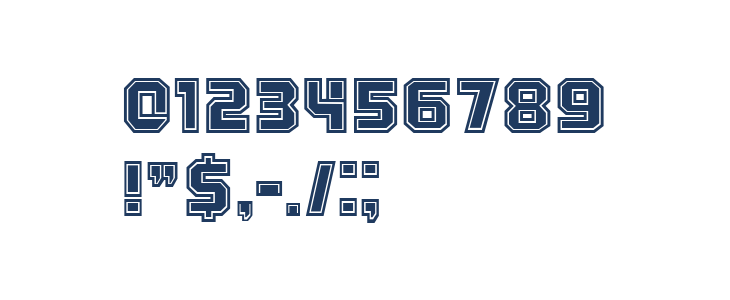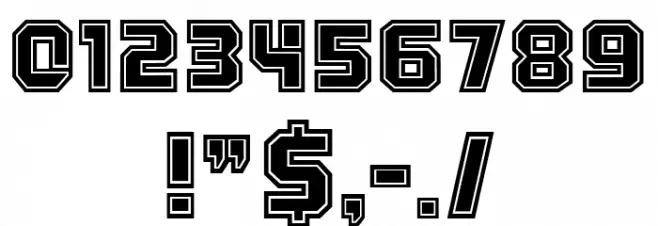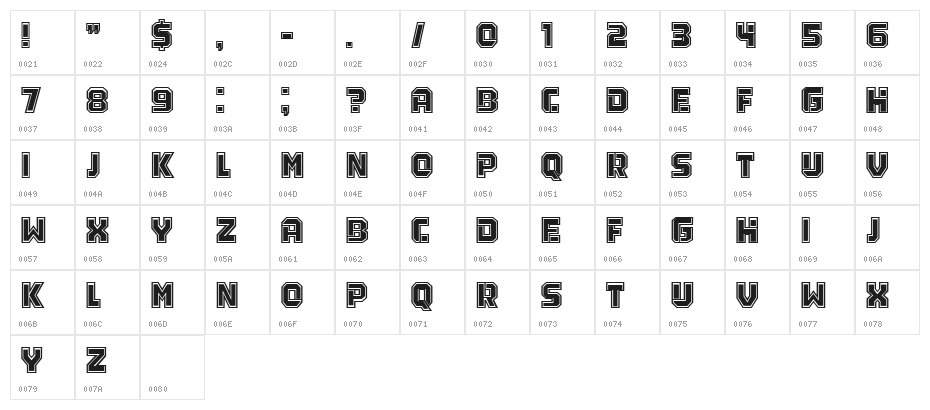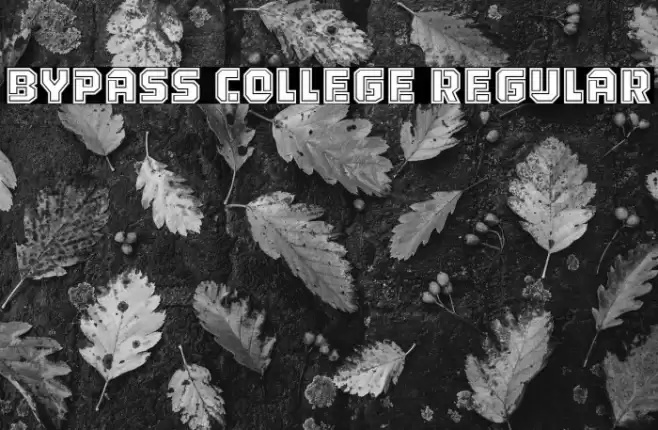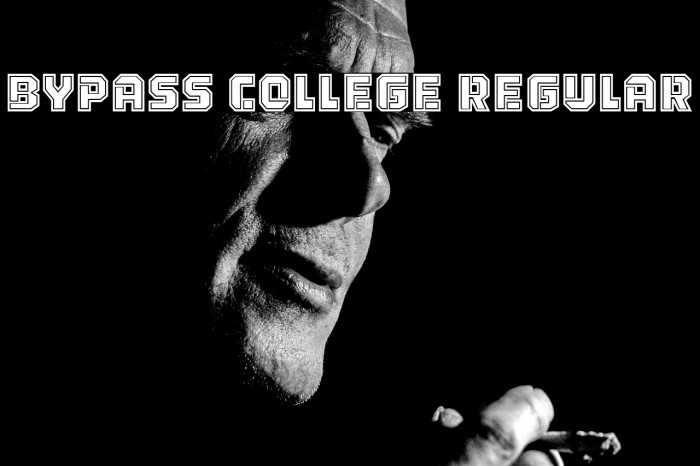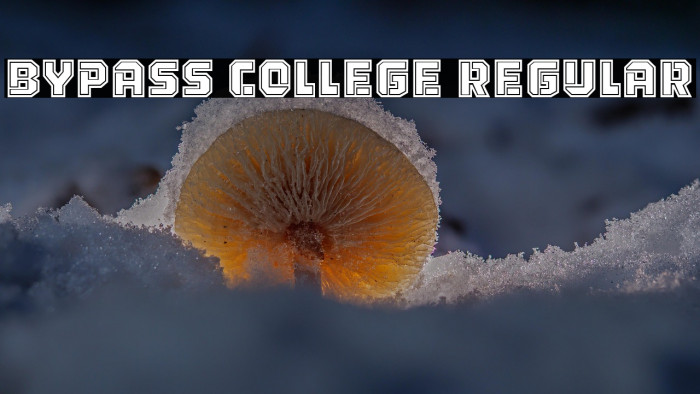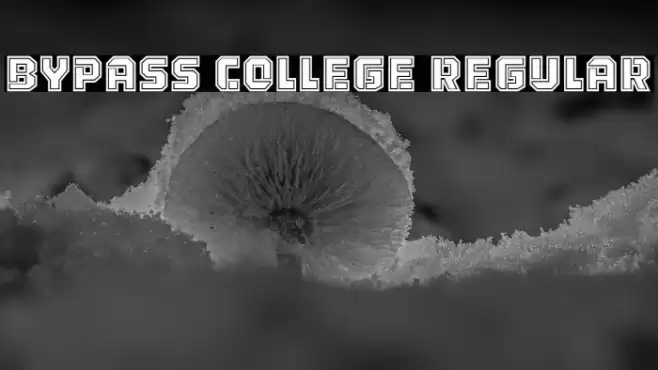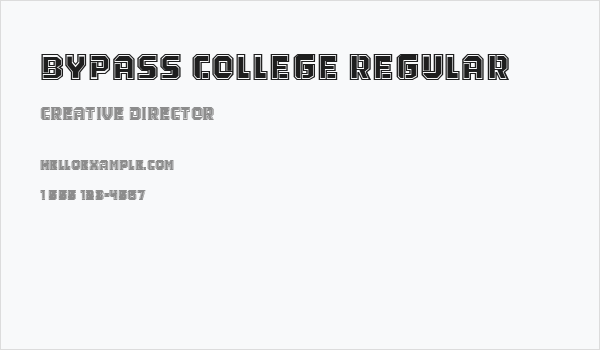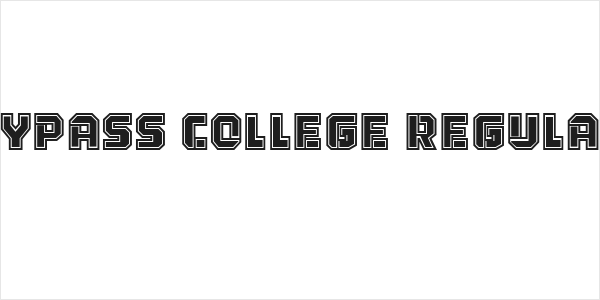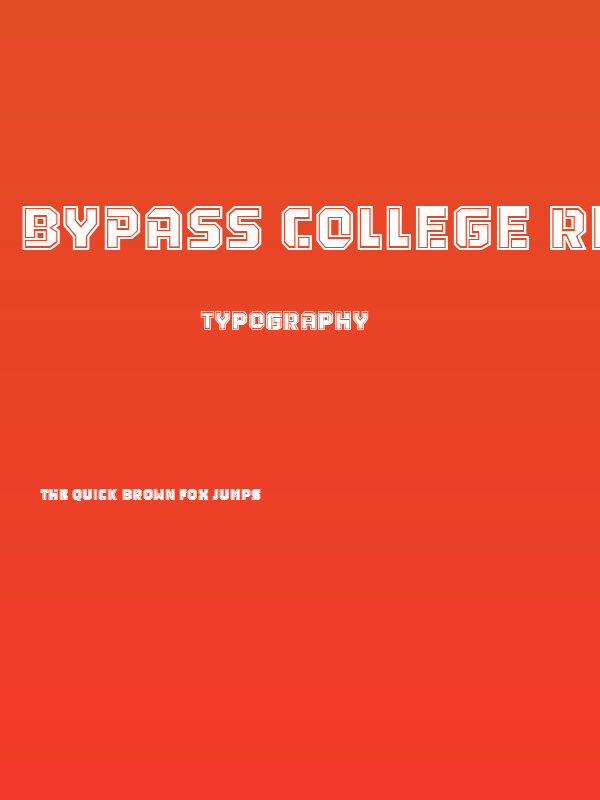
Bypass College Regular Font
Bypass College Regular Description
This font features a bold, geometric style with a strong emphasis on angular shapes and outlines. The characters are constructed with a double-line effect, creating a sense of depth and dimension. The uppercase letters are particularly striking, with a collegiate or sports team aesthetic. The numbers and special characters maintain this bold, outlined style, ensuring consistency across all elements. The font's design is both modern and retro, making it versatile for various creative applications. Its unique appearance makes it ideal for projects that require a standout, attention-grabbing typeface.
| Overall Style | Modern, Retro |
| Proposed Projects | Ideal for sports team logos, event posters, merchandise branding, and retro-themed designs. |